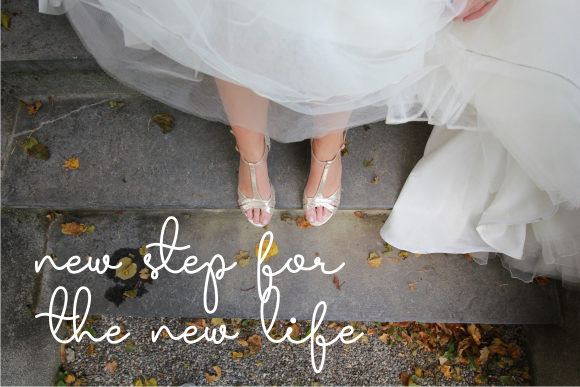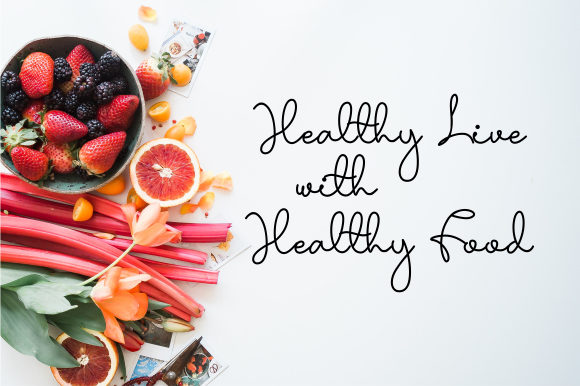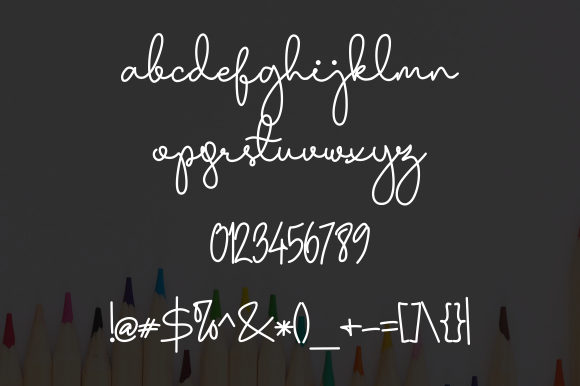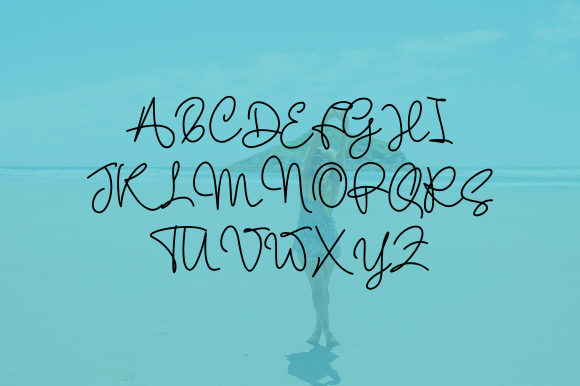
Holla Olla Font
About Holla Olla Font
Holla Olla has a welcoming, soft style and a regular flow It is perfect for beauty branding, monogram, personal branding, and photography.